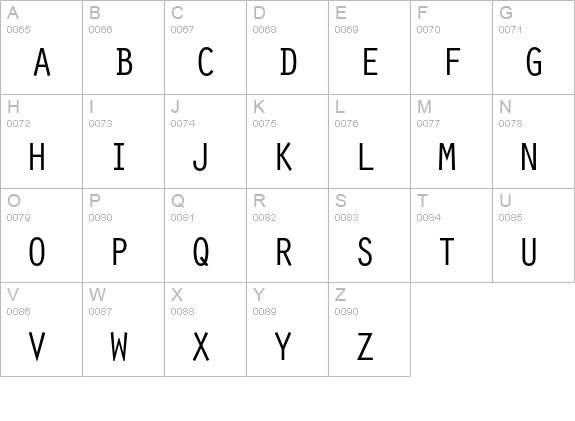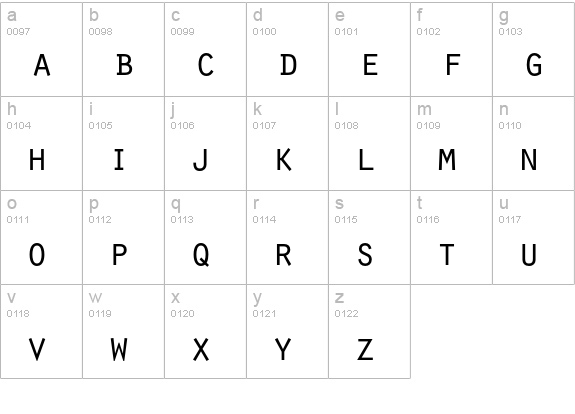
Orator Std Medium Font Details
Orator Std Medium is a balanced, medium-weight variant in the Orator typeface family \xE2\x80\x94 well suited to sub-headlines, navigation, and balanced editorial work.